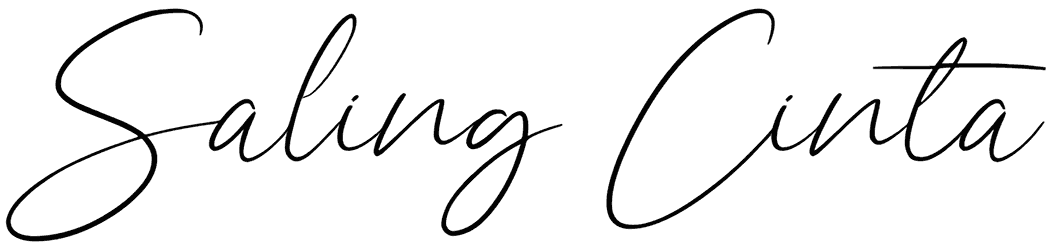
Saling Cinta Font
A peachy, minimal calligraphic outward can make your design look stylish and confident. As a handwritten font with an inherent and elegant mood, Saling Cinta can be used for a multitude of projects with any theme. What are you waiting for? Put to the test this A-Z versatile font for your following designs like logotype, magazines, invitation cards, fashion-related designs, or anything you want.